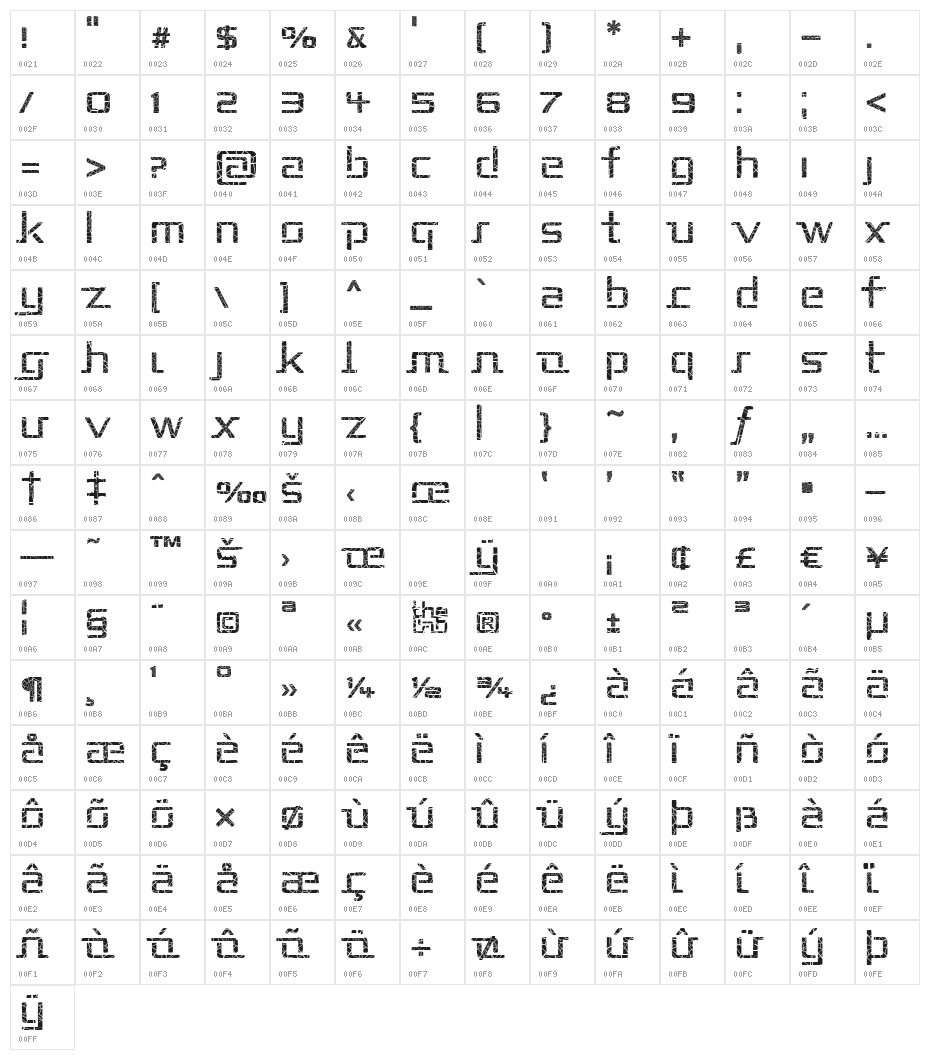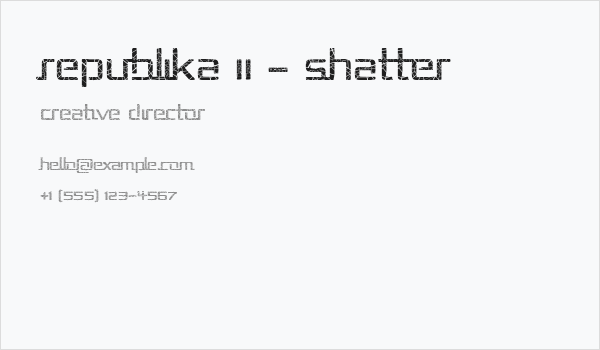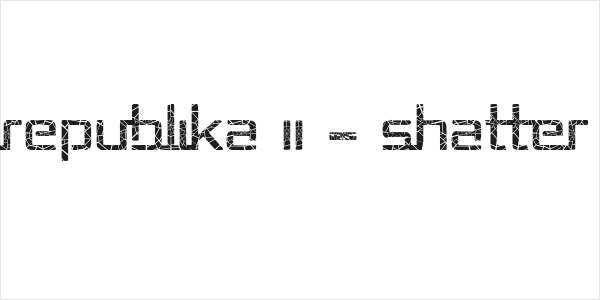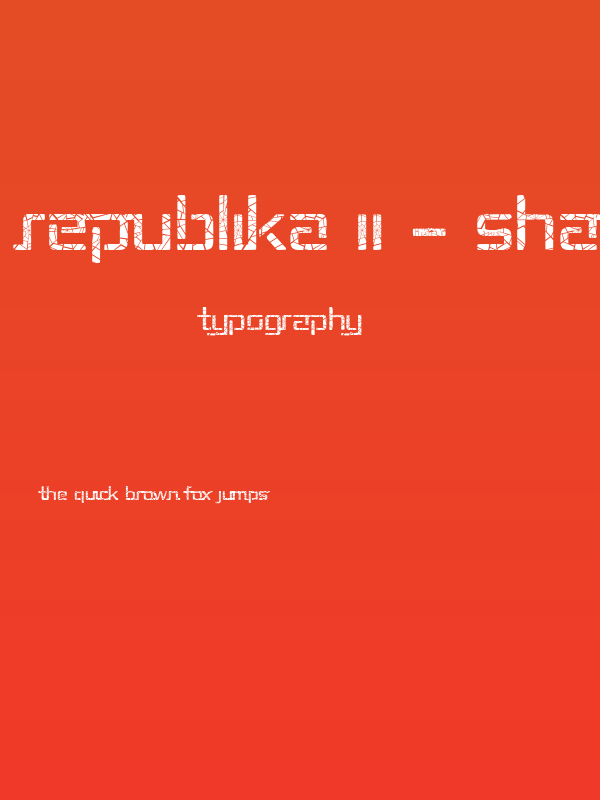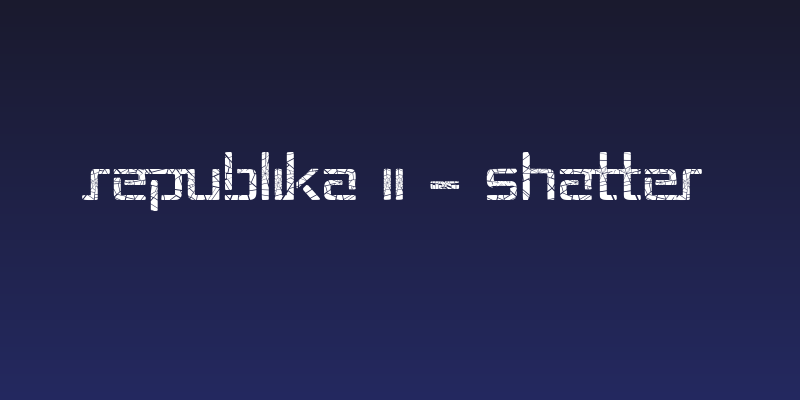
Republika II - Shatter Font
Republika II - Shatter Description
This font features a unique shattered glass effect, giving each character a fragmented and dynamic appearance. The uppercase and lowercase letters maintain a consistent geometric structure, while the numbers and special characters follow the same shattered pattern. The design is bold and eye-catching, making it ideal for projects that require a strong visual impact. The fragmented style adds a sense of movement and energy, suitable for modern and edgy designs.
| Proposed Projects | Ideal for album covers, posters, video game graphics, and branding that requires a modern, edgy look. |